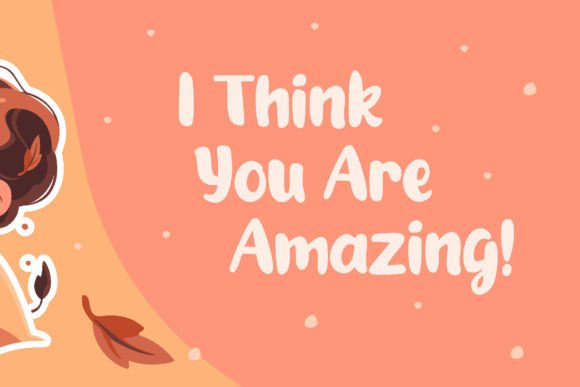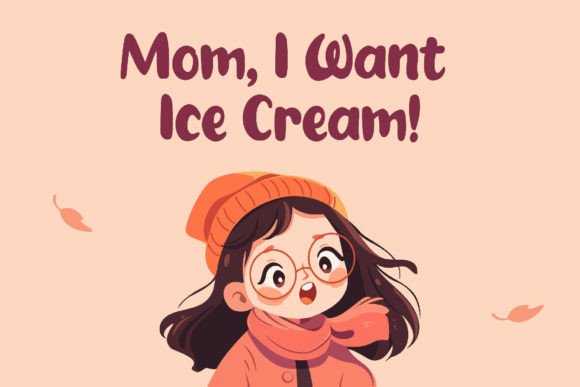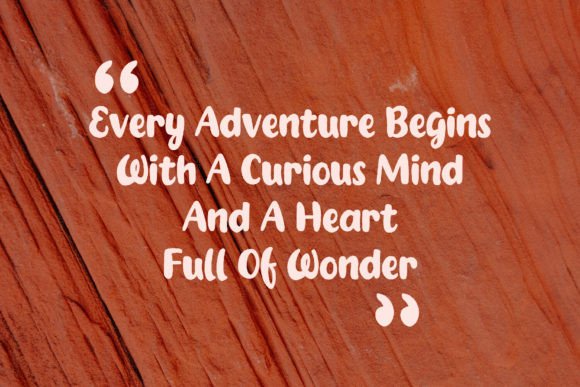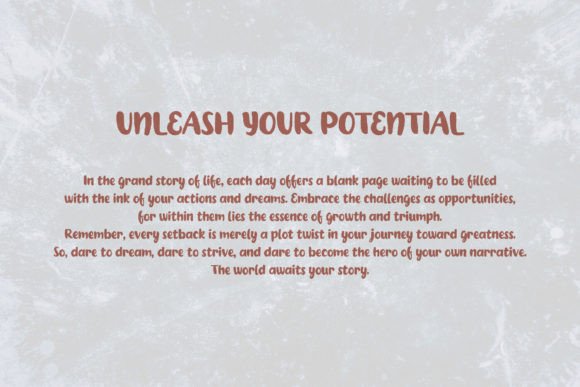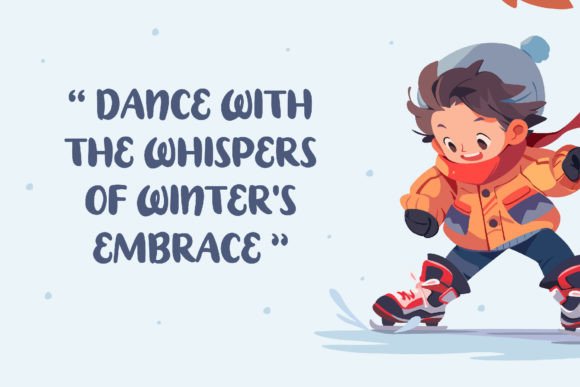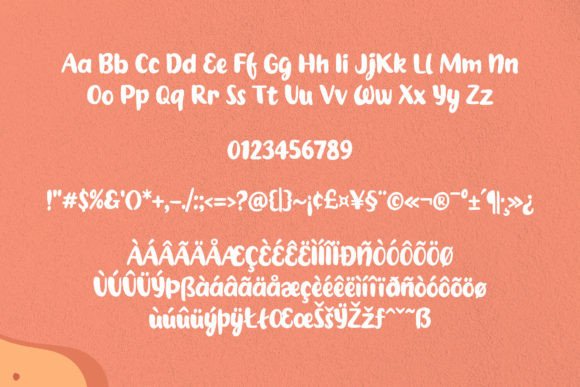
Unlock the Whimsy of Your Designs
Have you ever stared at a blank page, waiting for inspiration to strike? It’s a moment we’ve all been there – the spark of creativity waiting to be ignited. And what sparks it better than the perfect font? Introducing Casual Dreams Font, a playful display font designed to bring joy to your designs. With its whimsical strokes and dynamic curves, Casual Dreams radiates a carefree charm that’s perfect for a variety of projects.
Whether you’re working on children’s books, educational materials, or lively invitations, Casual Dreams adds a touch of fun to any design. Its carefree spirit is contagious, inspiring creativity and imagination in your projects. For designers, Casual Dreams Font is a valuable asset, offering a unique way to express their personality and style. Embrace the playful spirit of Casual Dreams and let every letter spark creativity in your projects.
Casual Dreams Font Key Features
- Unique Characteristics: Casual Dreams Font features a unique, hand-drawn design with a mix of cursive and sans-serif elements, giving it a friendly and approachable feel.
- Font Weight: The font is available in 3 different font weights: Light, Regular, and Bold, allowing designers to choose the perfect weight for their design project.
Designer Review: Casual Dreams Font
At first glance, Casual Dreams Font seems like a charming addition to any design project. ✨ Its soft, rounded edges and friendly feel immediately make me think of a laid-back Sunday morning. ✨ The font’s versatility is another plus point, suitable for a wide range of applications, from blog posts to social media graphics.
However, upon closer inspection, I notice a few limitations that might hinder its effectiveness. ⚠️ For one, the font’s legibility can be a concern at smaller font sizes, making it less suitable for body text. Additionally, the font’s irregularities can sometimes lead to uneven spacing, which might disrupt the overall visual flow of the design.
Here are some specific areas where Casual Dreams Font excels and falls short:
- ✨ Suitable for headings and titles due to its eye-catching nature
- ✨ Works well for social media graphics, posters, and flyers
- ⚠️ May not be ideal for body text or small font sizes
- ⚠️ May require manual spacing adjustments to maintain even visual flow
Overall, Casual Dreams Font is a solid choice for designers looking for a friendly, approachable font. While it may not be perfect for every project, its unique charm and versatility make it a valuable addition to any design toolkit.
The Casual Dreams Font is ideal for creating a relaxed and friendly atmosphere in your designs. Some common use cases include:
- Branding and marketing materials for small businesses or startups
- Blog posts and articles in the lifestyle or fashion niches
To get the most out of the Casual Dreams Font, try the following:
- Pair it with a clean and minimalist design aesthetic